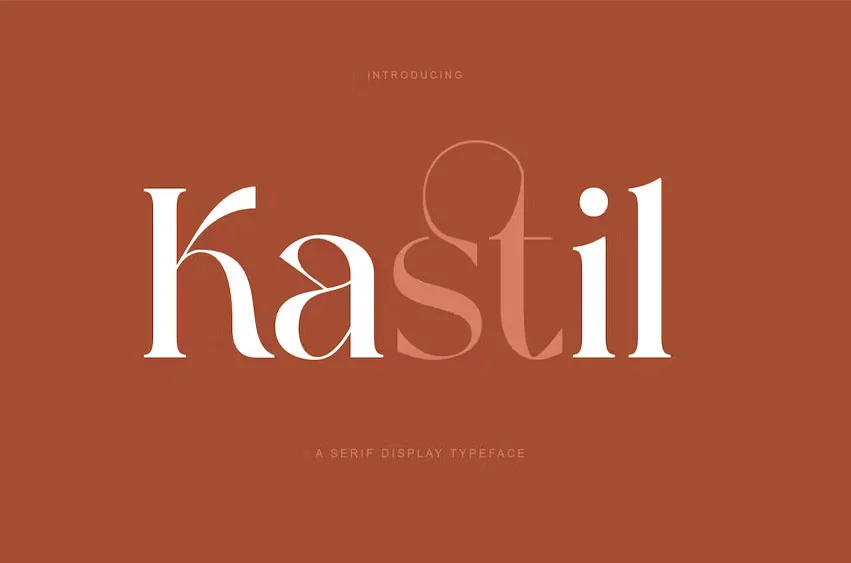
Kastil Font
Kastil Font is a Elegant Modern vintage font with slant version. It’s a very versatile font that works great in large and small sizes. Perfect for branding projects, Logo design, product packaging, magazine headers, or simply as a stylish text overlay to any background image.